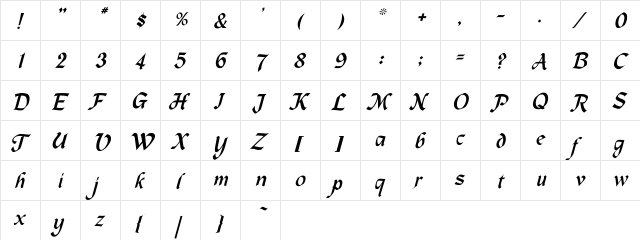
MacHumaine-Normal-Italic Regular
Design Context for MacHumaine-Normal-Italic Typeface
MacHumaine-Normal-Italic takes a measured approach to typography — its balanced proportions and neutral character make it a reliable workhorse for both digital and print work. The slanted form adds forward momentum and visual energy.
Pro Tip: Use MacHumaine-Normal-Italic for emphasis, pull quotes, and subheadings where its slanted energy can add rhythm to the layout.